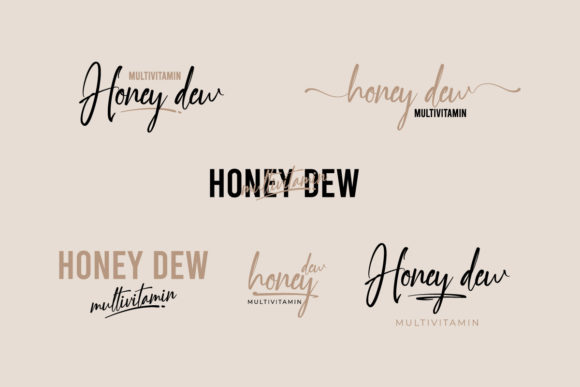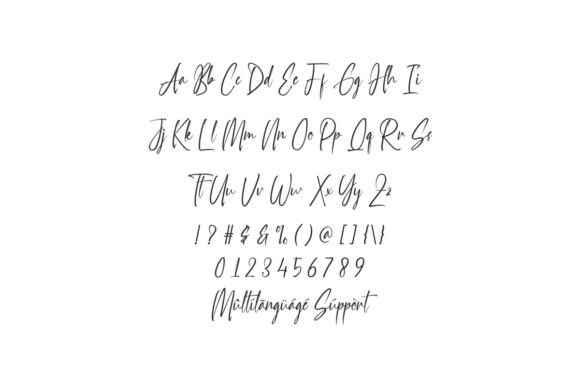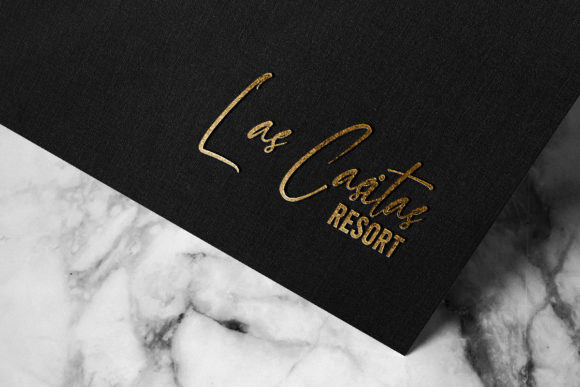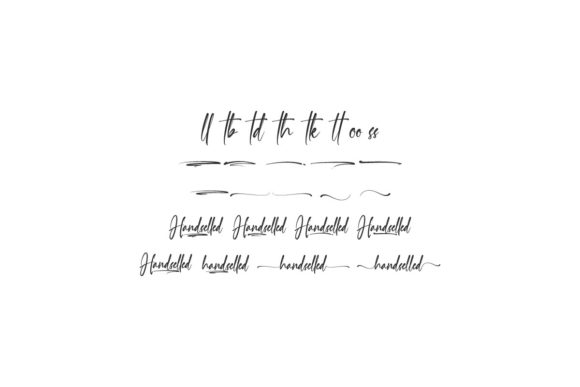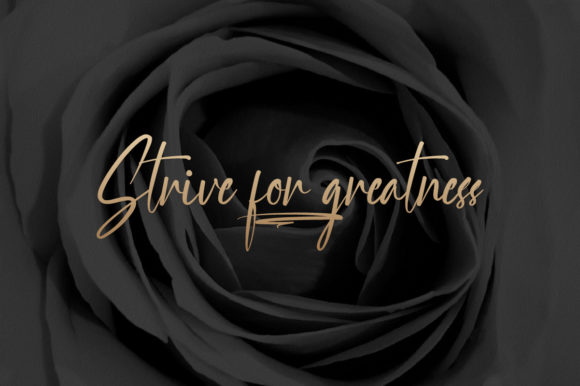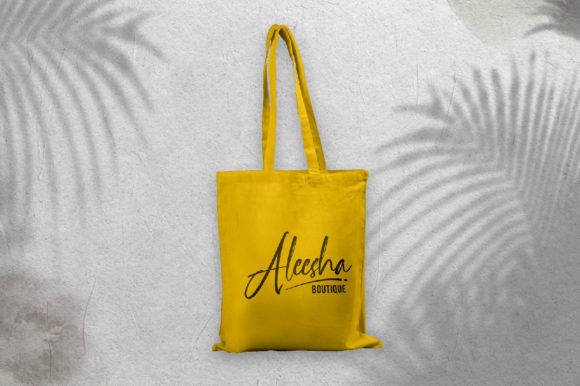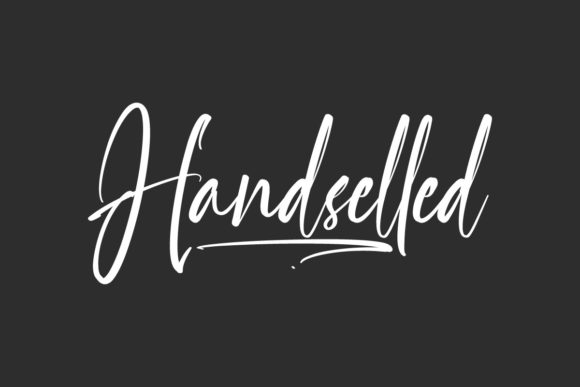
Introducing Handselled: A Timeless Brushed Script Font
In the world of typography, fonts play a crucial role in conveying the tone and personality of a brand, product, or message. For designers and crafters, finding the perfect font can be a daunting task. However, if you’re looking for a font that exudes elegance, modernity, and sophistication, look no further than Handselled.
What is Handselled?
Handselled is a stunning brushed script font that seamlessly blends modern and classic vibes. Its unique charm lies in its ability to convey a sense of refinement and luxury, making it an ideal choice for a wide range of design projects. Whether you’re working on logos, branding, invitations, stationery, wedding designs, social media posts, or more, Handselled is sure to impress.
Key Features of Handselled
- Classy and Elegant: Handselled boasts a sophisticated and refined aesthetic that’s perfect for high-end designs.
- Modern Look: The font’s modern twist ensures it stays fresh and contemporary, making it suitable for a wide range of applications.
- Brushed Script: The brushed script style gives Handselled a unique, hand-crafted feel that’s sure to add a touch of personality to your designs.
- Versatile: Handselled can be used for various design projects, from logos and branding to invitations, stationery, and social media posts.
Why Choose Handselled?
With so many fonts available, it’s essential to choose one that stands out from the crowd. Here are just a few reasons why Handselled should be your go-to font:
- Unique Style: Handselled’s distinctive brushed script style ensures your designs will stand out from the competition.
- Easy to Read: Despite its elegant and refined appearance, Handselled remains easy to read, making it perfect for body text and titles.
- Scalable: Handselled is designed to look great at any size, from small captions to large headlines.
- Timeless: The font’s classic and modern blend ensures it won’t go out of style anytime soon, making it a valuable addition to your design library.
Design Ideas with Handselled
Now that you’ve fallen in love with Handselled, here are some design ideas to get you started:
- Wedding Invitations: Create beautiful, elegant wedding invitations that set the tone for a sophisticated celebration.
- Branding and Logos: Use Handselled to create a luxurious brand identity that exudes refinement and class.
- Social Media Posts: Add a touch of elegance to your social media posts and make them stand out from the crowd.
- Stationery: Design stunning stationery, including business cards, letterheads, and more, with Handselled as the star of the show.